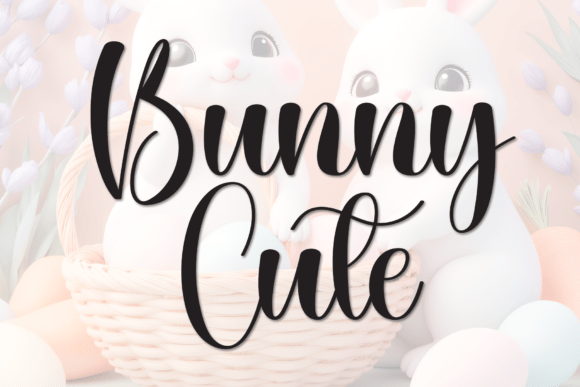
Meet Your New Favorite Font: Bunny Cute Font
Have you ever been in the midst of a creative project, pouring your heart and soul into a design, only to feel like something’s missing? That’s when you stumble upon the perfect font, and suddenly, everything falls into place. For many designers, that perfect font is the Bunny Cute Font, a stylish handwritten script font that brings elegance and playfulness to any project.
With its flowing curves and natural rhythm, the Bunny Cute Font adds a personal, charming touch to invitations, branding, and social media. Its graceful design brings warmth, sophistication, and creativity to any project. Whether you’re a seasoned designer or just starting out, this font is a valuable addition to your toolkit.
Bunny Cute Font Key Features
- Unique Characteristics: Bunny Cute Font features a playful, cursive script with rounded edges and adorable details, making it perfect for creating a whimsical and child-friendly atmosphere.
Bunny Cute Font Review
Overall, I’m giving the “Bunny Cute Font” a solid 3.5 out of 5 stars. While it’s cute and playful, it’s not perfect. Let’s dive into the details.
- Cute and whimsical design that’s perfect for kids’ products or Easter-themed branding.
- Easy to read, even at smaller font sizes.
- Comes in a variety of weights and styles, making it versatile for different design applications.
- May not be suitable for professional or formal designs, as it’s too playful and childish.
- Lacks a clear and consistent line weight, which can make it difficult to use in certain design situations.
- Some characters may not have a matching italic or bold version, which can limit its usability.
The “Bunny Cute Font” is a fun and playful font that’s perfect for certain design applications. While it has some limitations, it’s a great choice for kids’ products, Easter-themed branding, or any other design that needs a touch of whimsy. Just be aware of its limitations and use it judiciously.
The Bunny Cute Font is perfect for:
- Children’s book covers and illustrations
- Gift tags and cards
- Social media posts and graphics
- Product labels and packaging
To get the most out of the Bunny Cute Font:
- Use it in conjunction with other playful fonts and graphics
- Experiment with different font sizes and styles
- Choose the Bunny Cute Font as the primary font for the stationery set.
- Use the font in various sizes and colors to create visual interest.
- Pair the font with cute illustrations and graphics to enhance the whimsical feel.
- Use pastel colors and floral patterns to create a soft, feminine look.
- Combine the font with hand-drawn illustrations for a more personal touch.
- Experiment with different textures, such as watercolor or glitter, to add depth to the design.
- Use the Bunny Cute Font as the main font for the Easter-themed graphics.
- Choose a bold, bright color scheme to match the festive spirit.
- Pair the font with Easter-themed illustrations, such as bunnies, eggs, and flowers.
- Use bold, colorful graphics to grab attention on social media.
- Combine the font with animated GIFs or videos to create engaging content.
- Experiment with different shapes
Design Projects with Bunny Cute Font
Project 1: Whimsical Stationery Set
Create a set of adorable stationery items such as notecards, stickers, and gift tags using the Bunny Cute Font.
How to use Bunny Cute Font:
Project 2: Easter-Themed Social Media Graphics
Design Easter-themed social media graphics using the Bunny Cute Font to create eye-catching and adorable posts.
How to use Bunny Cute Font: